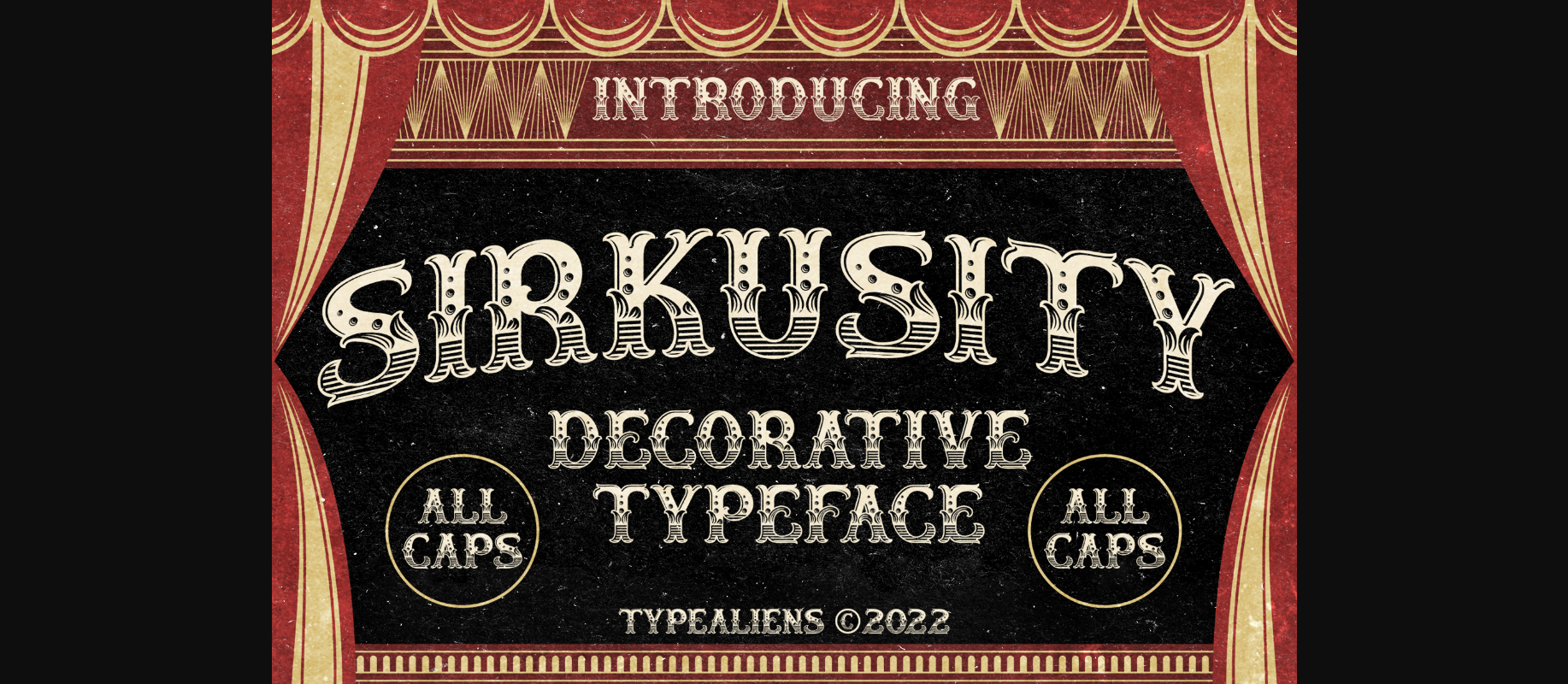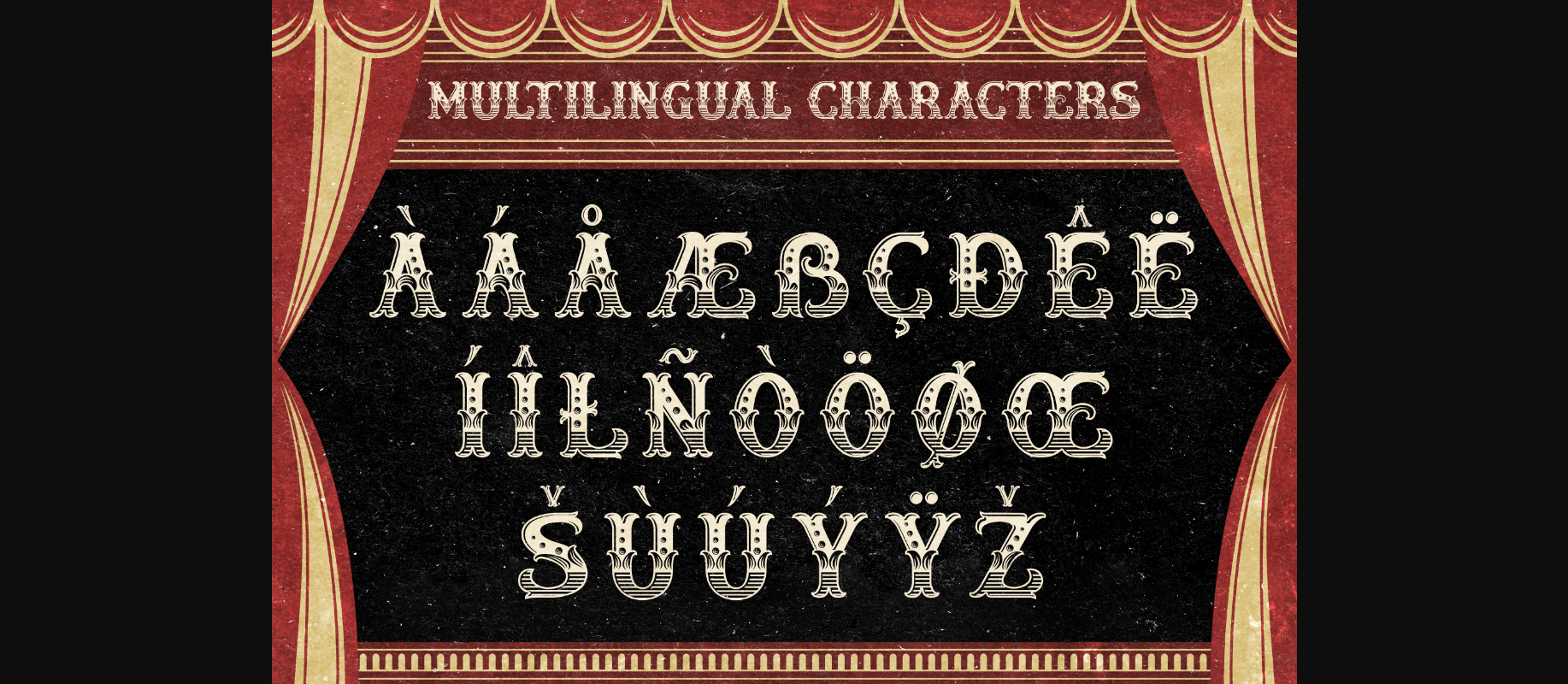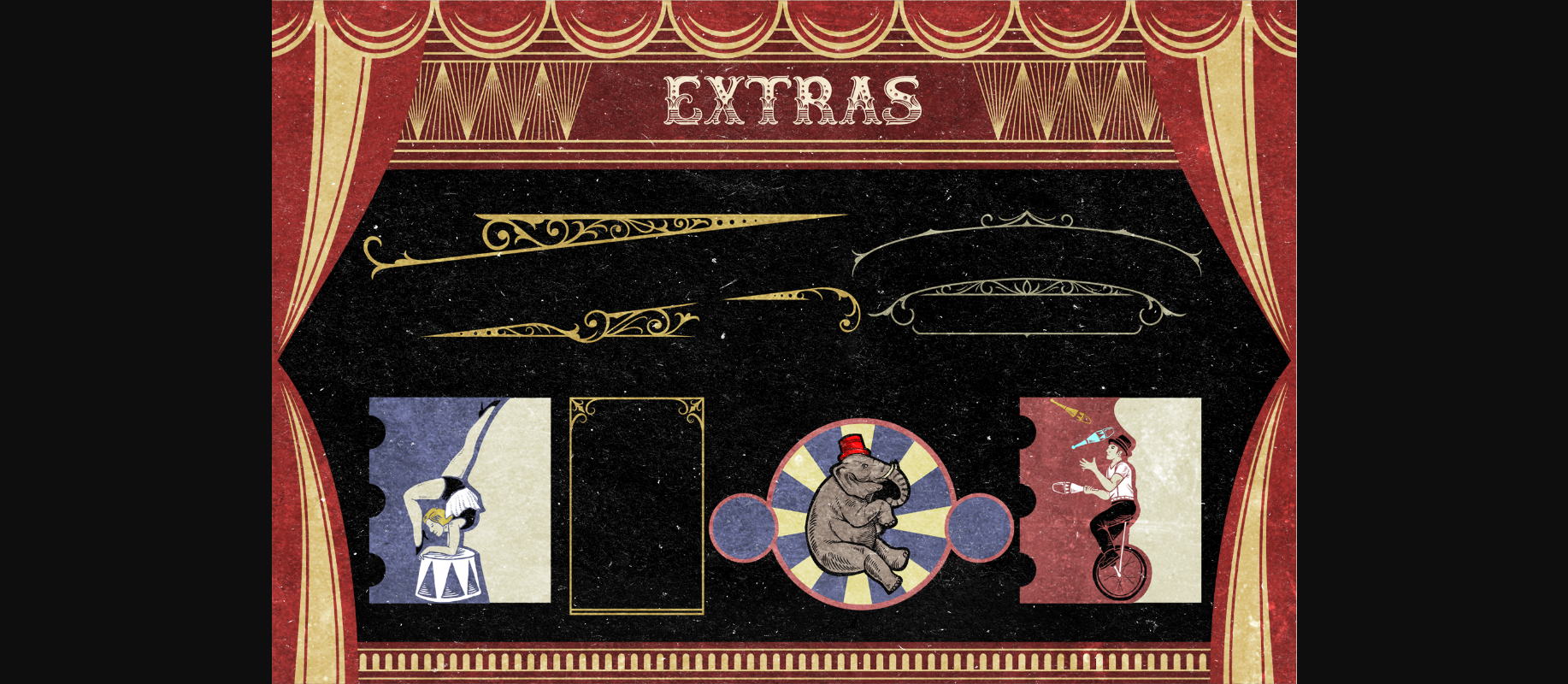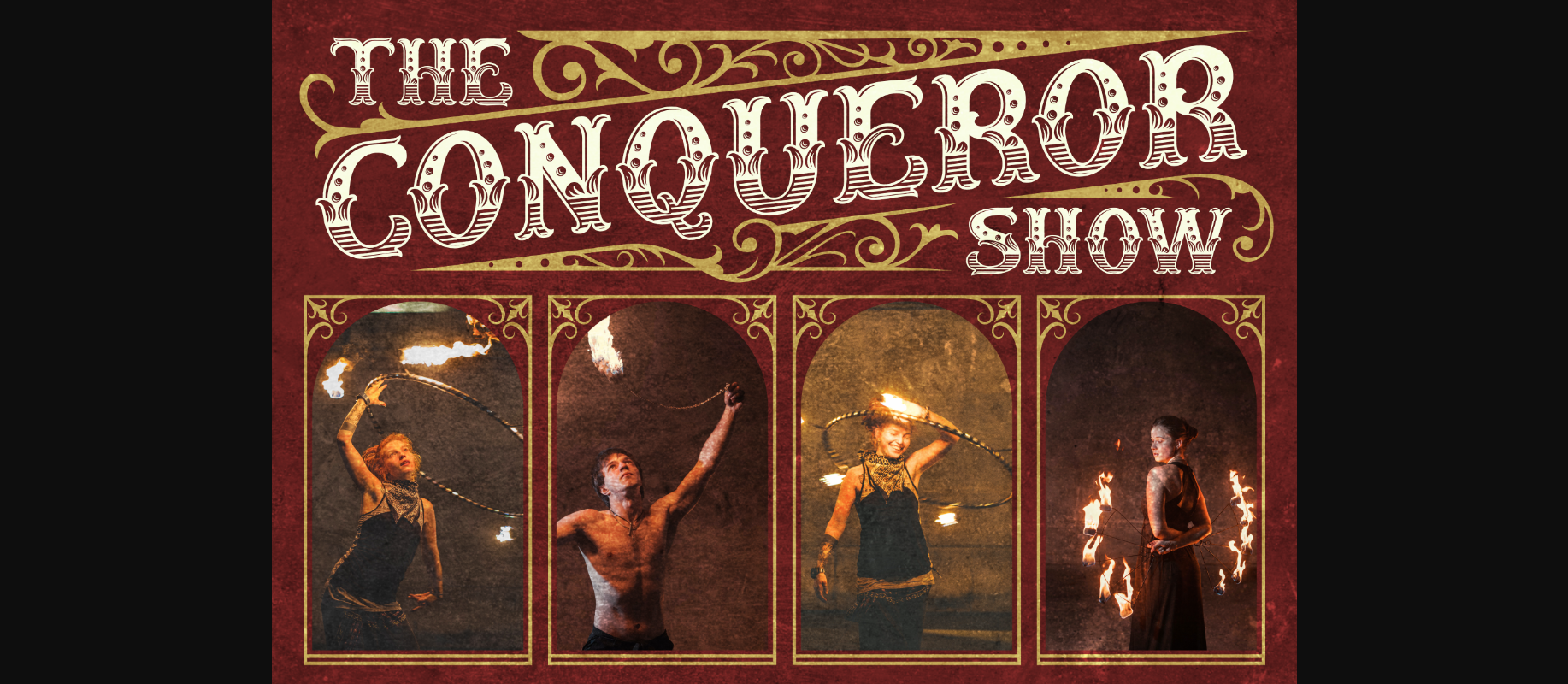
Sirkusity Font
About Sirkusity Font
Sirkusity is an incredibly stylish and unique decorative font, inspired by the fabulous world of the circus. Add this original font to any project that requires a vintage, cabaret-style look and you will be astounded by the generated outcome!